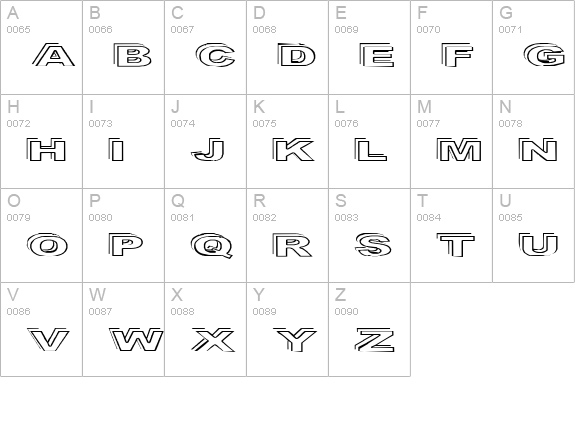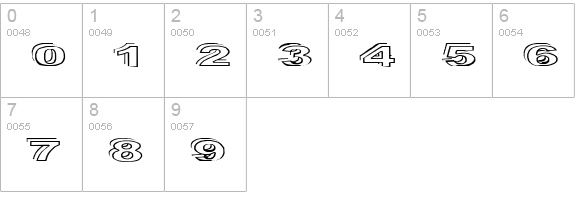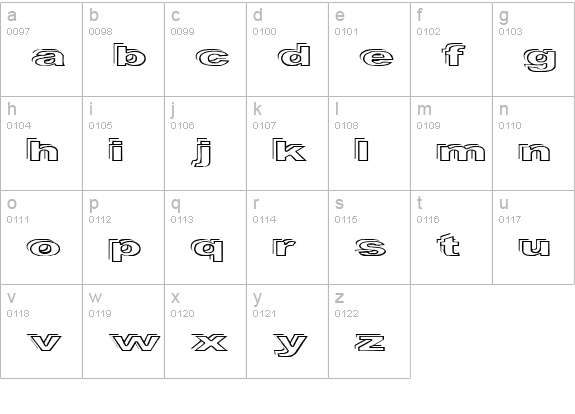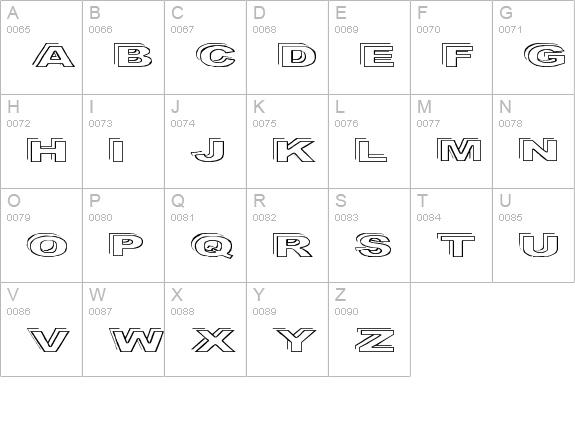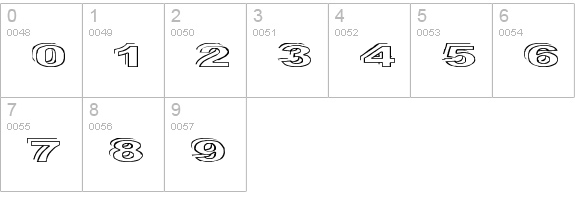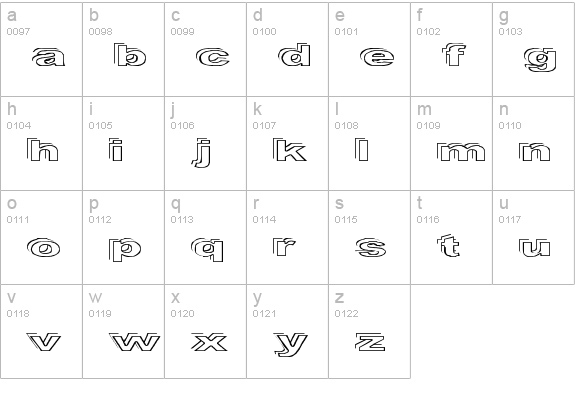
Ryckindor Font Details
Introducing Ryckindor font, a stylish and versatile typeface that exudes sophistication and elegance. With its unique blend of modernity and classic charm, Ryckindor is perfect for a wide range of design projects, from branding to editorial design. This exquisite font features sleek lines and subtle curves that give it a timeless appeal, making it ideal for both digital and print applications. Whether you're working on a logo, website, or packaging design, Ryckindor will elevate your project and make a lasting impression on your audience. Best of all, Ryckindor font is completely free to download at FontsMarket.com. Now you can enjoy the beauty and versatility of this stunning typeface without breaking the bank. Don't miss out on the opportunity to add Ryckindor to your font collection and take your designs to the next level.